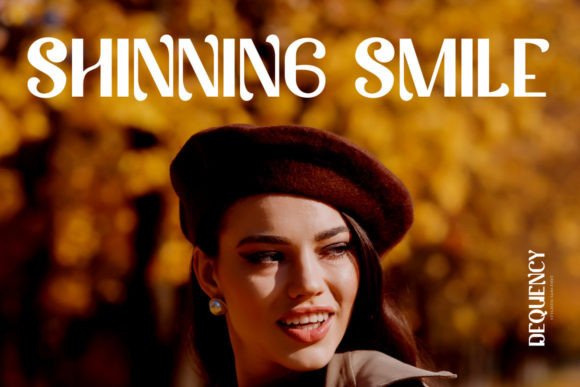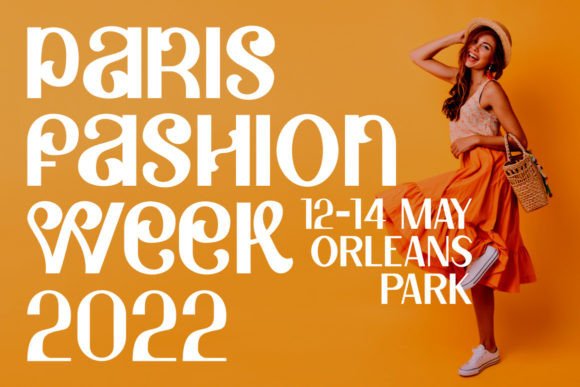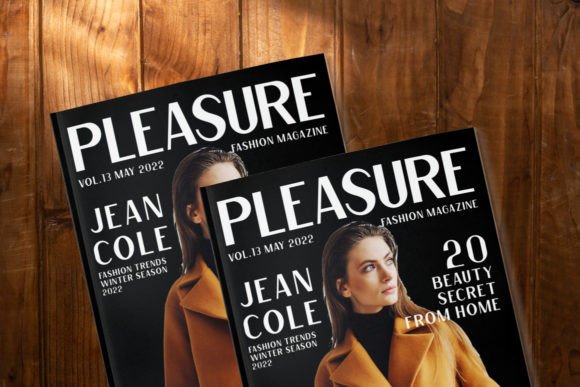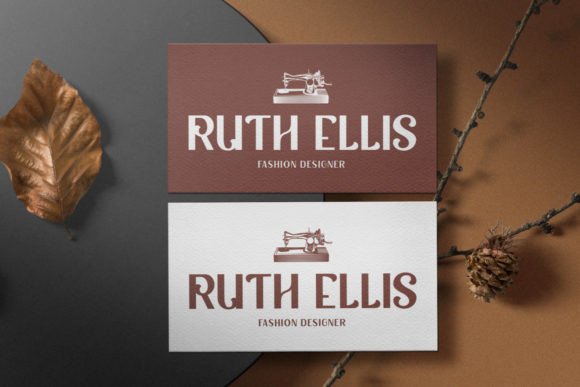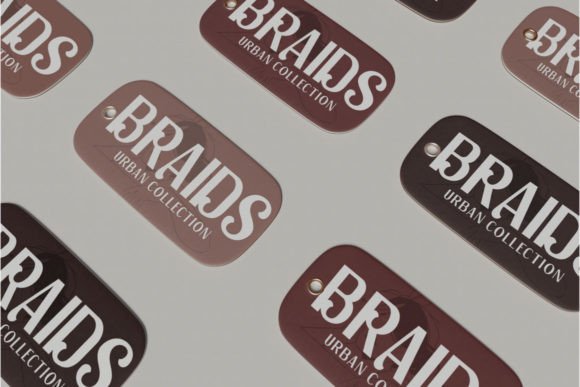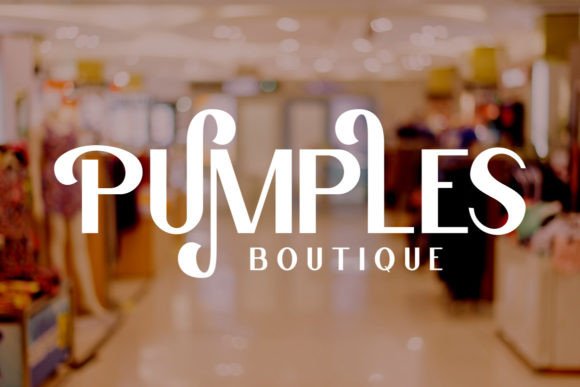
Introducing Dequency Font: Elevate Your Designs with Stylish Sans-Serif Elegance
In the world of typography, fonts play a crucial role in conveying messages, expressing creativity, and capturing the essence of a brand. For designers, crafters, and creative enthusiasts, finding the perfect font can be a daunting task. However, if you’re looking for a stylish sans-serif font that can elevate your designs, look no further than Dequency Font. In this article, we’ll explore the unique features, versatility, and uses of Dequency Font, and why it’s a must-have for any designer or crafter.
What is Dequency Font?
Dequency Font is a stylistic sans-serif font that draws inspiration from unique typography and lettering in the stylistic alphabet, combined with the clean and modern sans style. This fusion of styles results in a font that is both elegant and edgy, making it perfect for a wide range of design applications.
Key Features of Dequency Font
So, what sets Dequency Font apart from other fonts? Here are some of its key features:
- Stylistic Alphabet Inspiration: Dequency Font’s unique lettering style is inspired by the stylistic alphabet, giving it a distinctive and sophisticated look.
- Sans-Serif Elegance: The font’s sans-serif style provides a clean and modern aesthetic, making it perfect for designs that require a touch of elegance.
- Versatility: Dequency Font is designed to be versatile, making it suitable for a wide range of design applications, from logotypes and headings to posters, logos, and more.
Uses of Dequency Font
Dequency Font is an incredibly versatile font that can be used for various design projects. Here are some of the ways you can use Dequency Font:
- Logotype: Create a stunning logotype for your brand with Dequency Font’s unique and stylish lettering style.
- Headings and Titles: Use Dequency Font to add a touch of elegance to your headings and titles, making them stand out from the crowd.
- Posters and Flyers: Dequency Font is perfect for creating eye-catching posters and flyers that require a stylish and modern aesthetic.
- Logos and Branding: Establish a strong brand identity with Dequency Font’s distinctive and memorable lettering style.
- Quotes and Inspirationals: Add a touch of sophistication to your quotes and inspirationals with Dequency Font’s elegant sans-serif style.
- Product Packaging: Elevate your product packaging with Dequency Font’s stylish and modern aesthetic.
- Merchandise: Create stunning merchandise, such as t-shirts, mugs, and more, with Dequency Font’s unique lettering style.
- Social Media: Use Dequency Font to create engaging social media graphics, such as Facebook posts, Instagram stories, and more.
- Greeting Cards: Add a touch of elegance to your greeting cards with Dequency Font’s sophisticated lettering style.
Why Choose Dequency Font?
With so many fonts available, why choose Dequency Font? Here are some reasons why Dequency Font stands out:
- Unique Lettering Style: Dequency Font’s stylistic alphabet inspiration and sans-serif elegance make it a one-of-a-kind font.
- Versatility: Dequency Font can be used for a wide range of design applications, making it a valuable addition to any designer’s toolkit.
- Elegance and Sophistication: Dequency Font’s elegant sans-serif style and sophisticated lettering style make it perfect for designs that require a touch of luxury.
In conclusion, Dequency Font is a stylish sans-serif font that offers a unique blend of elegance and sophistication. With its versatile design, Dequency Font can be used for a wide range of design applications, from logotypes and headings to posters, logos, and more. Whether you’re a designer, crafter, or creative enthusiast, Dequency Font is a must-have font that can elevate your designs and help you stand out from the crowd.